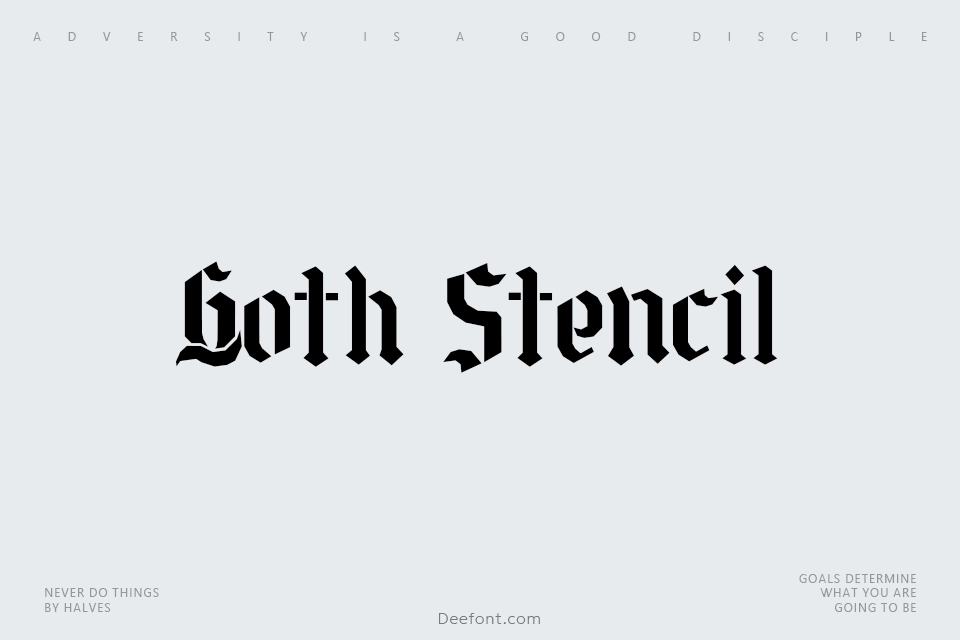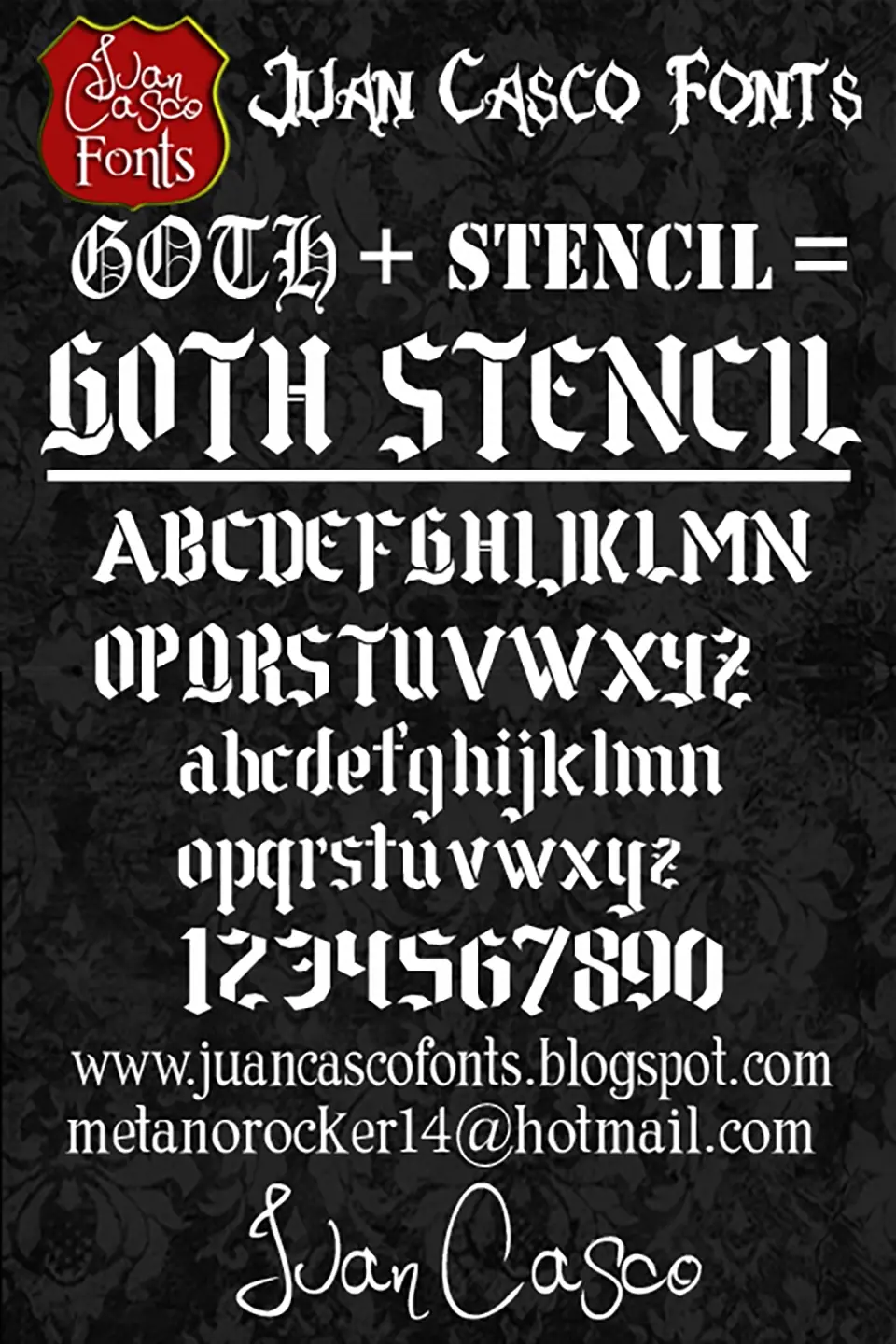
Goth Stencil Font
Goth Stencil is a bold, dramatic display font featuring a distinctive blend of gothic and stencil styles. With sharp, angular edges and characteristic cut-out sections, this typeface creates striking visual impact perfect for headlines, posters, and dramatic branding projects. The intricate uppercase letters showcase historical elegance with a modern twist, while maintaining strong presence across all character sets. Ideal for designs requiring bold statements and eye-catching typography with an edgy aesthetic.